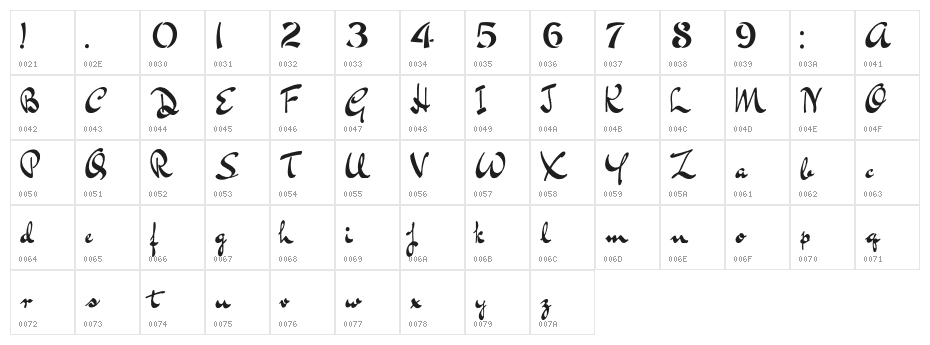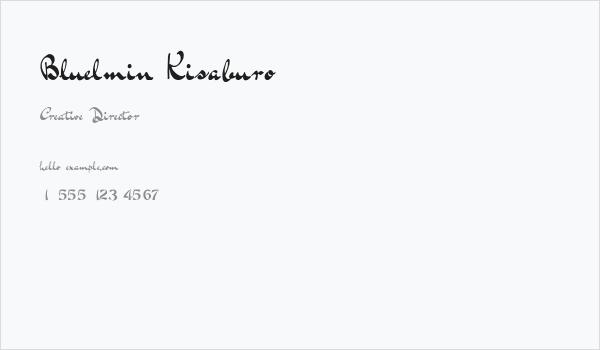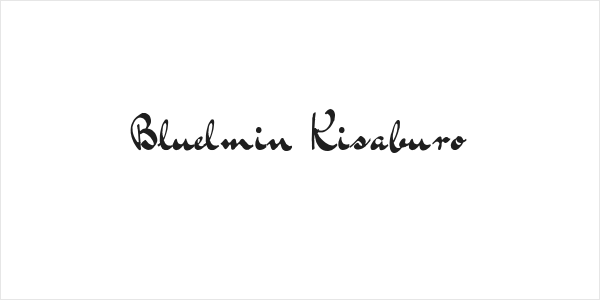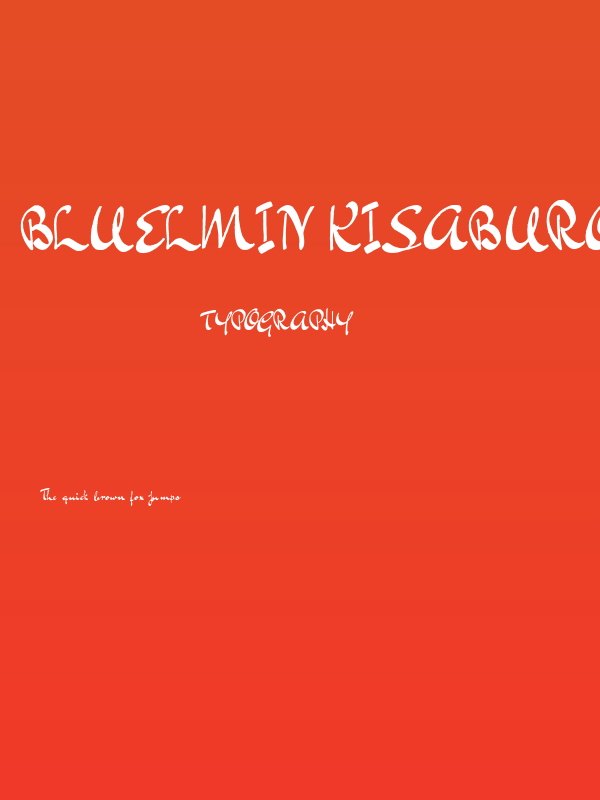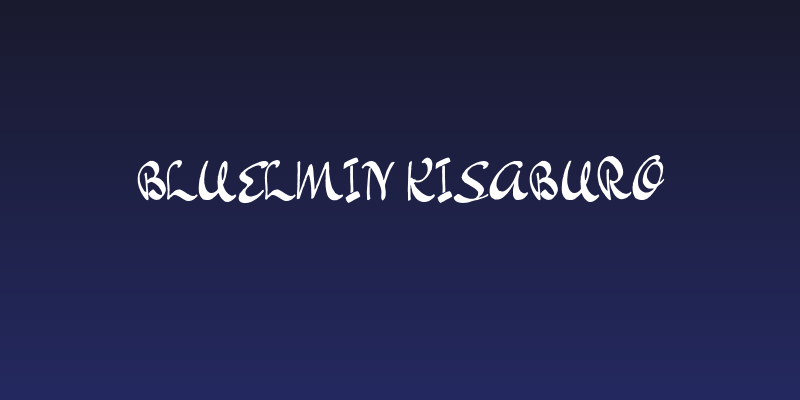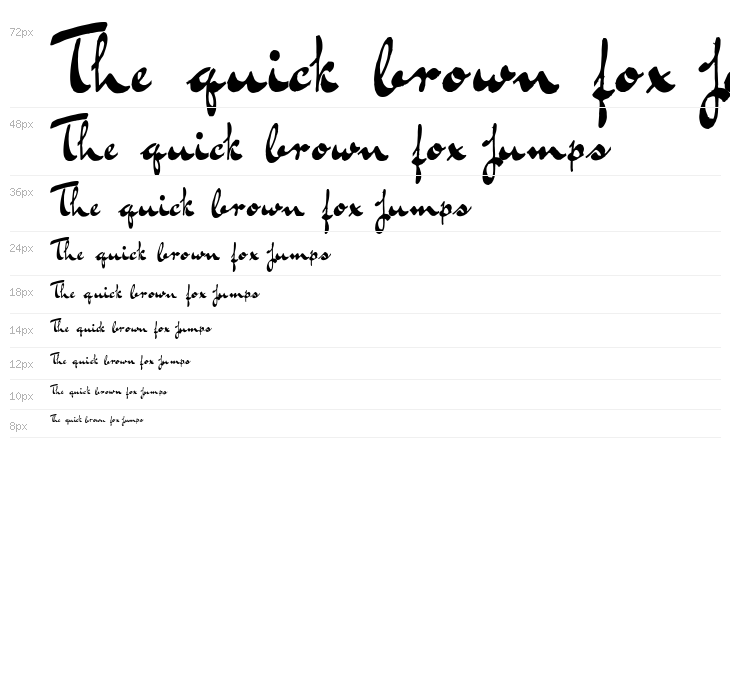
Bluelmin Kisaburo Font
Bluelmin Kisaburo Description
This font features a dynamic and expressive style, characterized by its flowing, cursive script that exudes a sense of elegance and creativity. The uppercase letters are bold and slightly slanted, with distinctive flourishes that add a touch of sophistication. The lowercase letters maintain a consistent flow, with smooth curves and a natural handwritten feel. The numerals are bold and slightly stylized, ensuring they stand out while maintaining harmony with the overall design. This font is ideal for projects that require a personal touch, such as invitations, greeting cards, or artistic branding.